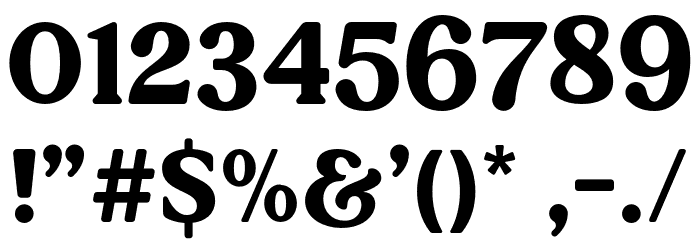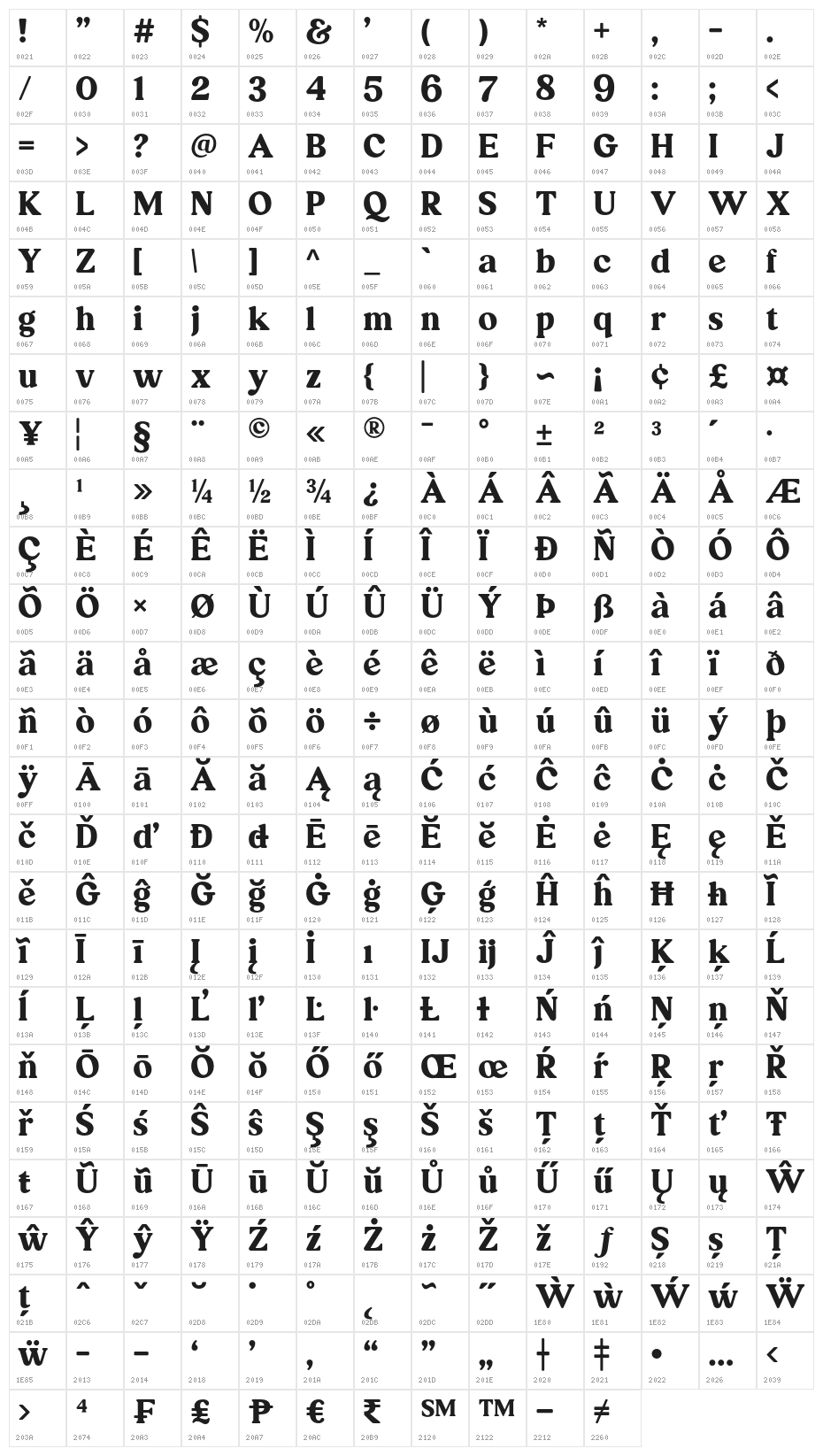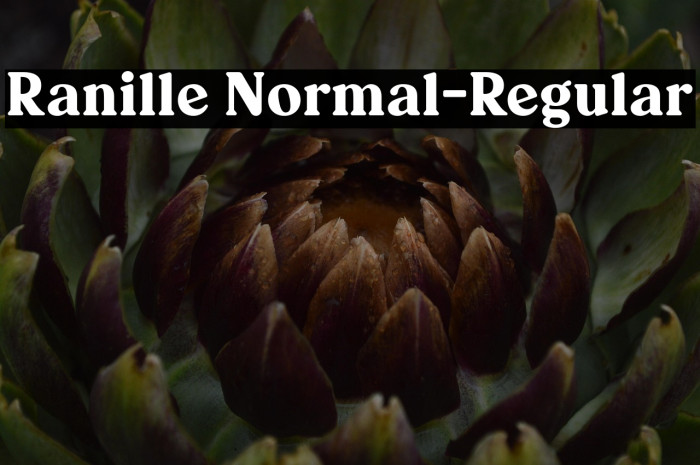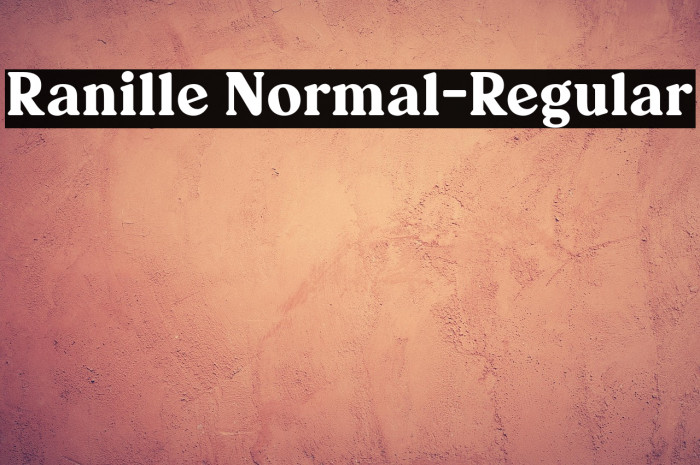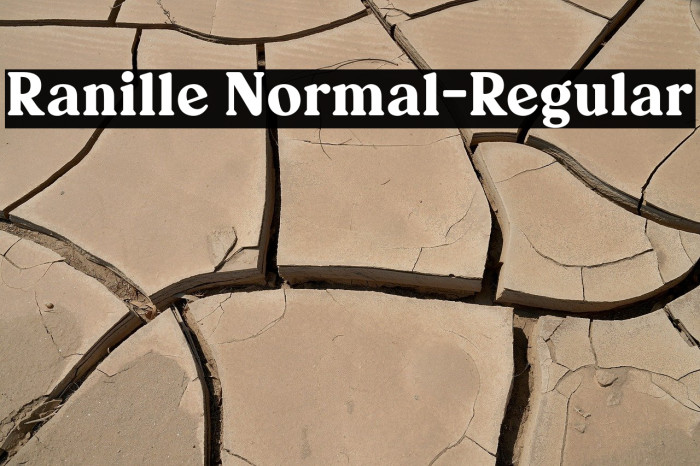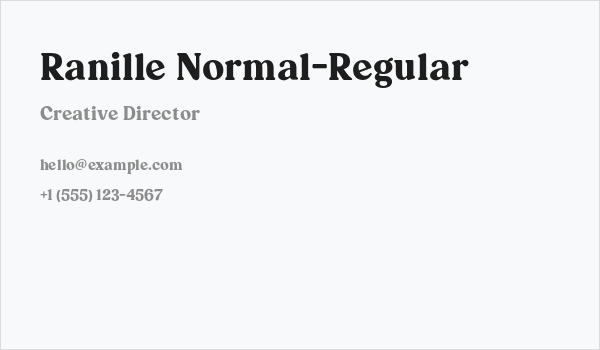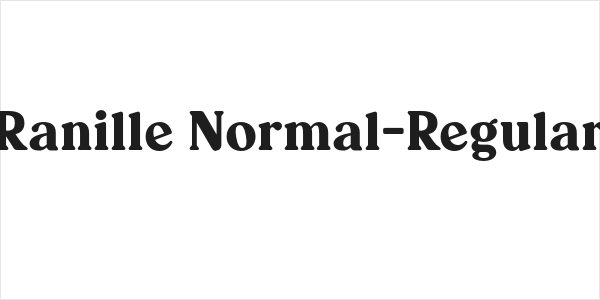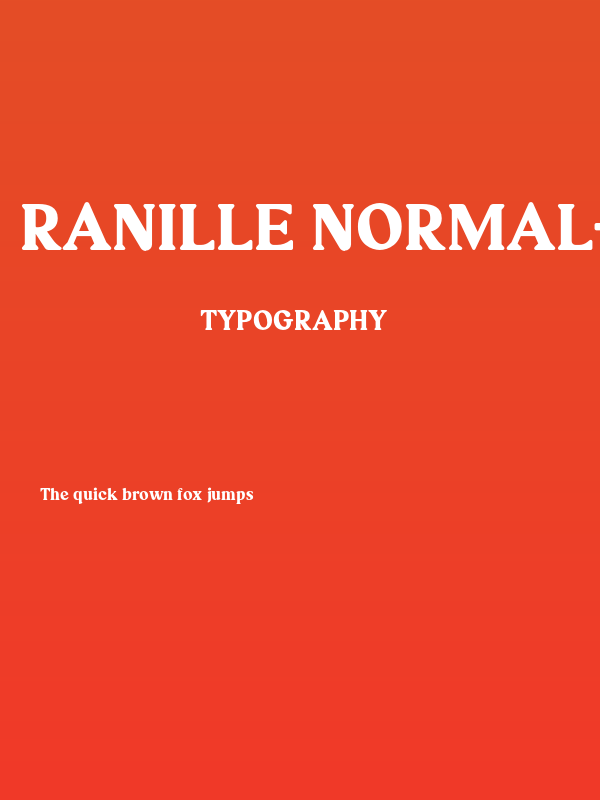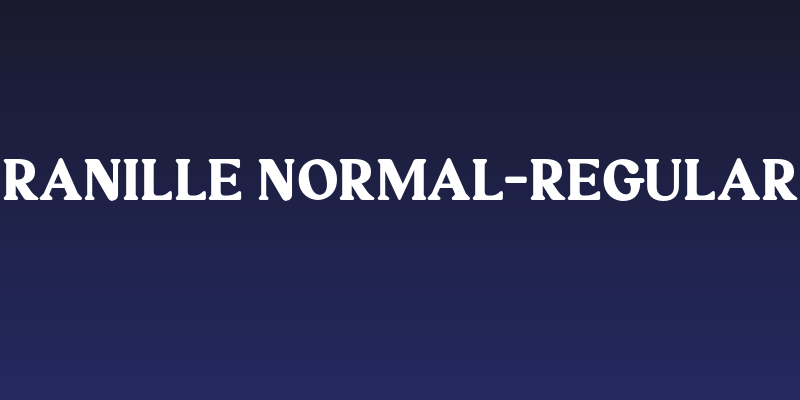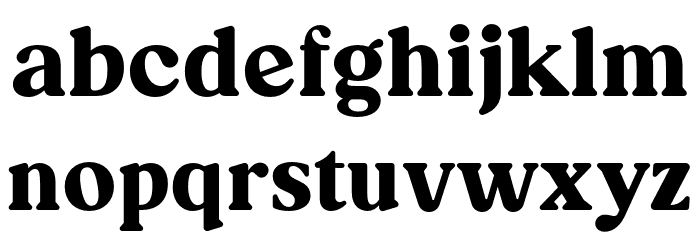
Ranille Normal-Regular Font
Ranille Normal-Regular Description
This font features a classic serif style with strong, bold strokes and a traditional feel. The uppercase letters are well-defined with a slight curvature that adds elegance, while the lowercase letters maintain a consistent flow. The numerals are robust and clear, making them easily readable. Special characters are crafted with attention to detail, ensuring they complement the overall aesthetic. The font's design is versatile, suitable for both digital and print media, offering a timeless appeal that works well in various contexts.